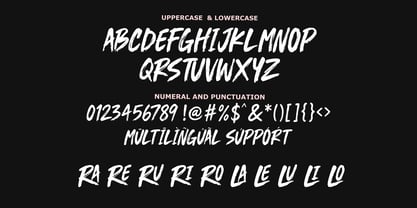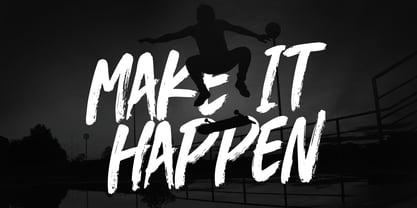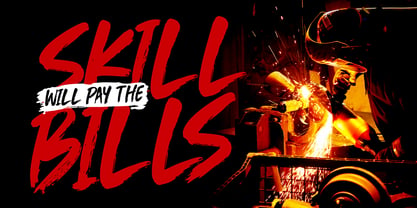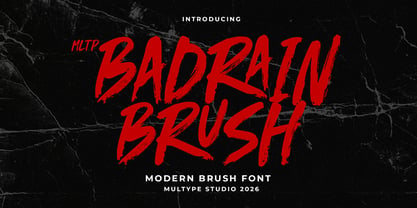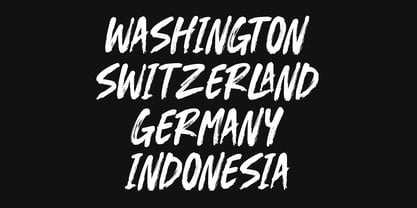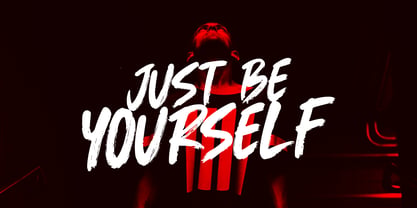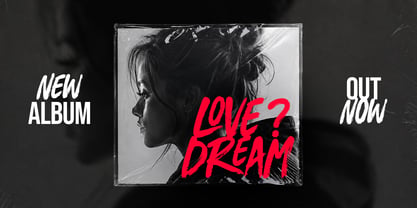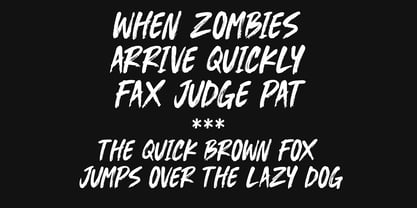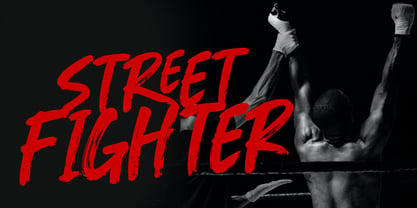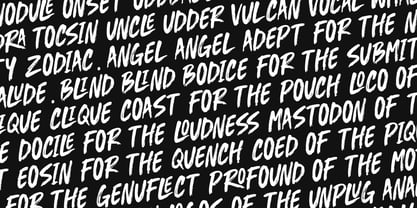
MLTP Badrain Brush
by Multype Studio
The MLTP Badrain Brush Font Family was designed by Mulia Yanto and published by Multype Studio. MLTP Badrain Brush contains 1 styles. More about this family
MLTP Badrain Brush is a bold and expressive brush font designed to bring raw energy, movement, and handcrafted character to your creative projects. With its dynamic brush strokes, rough textured edges, and authentic hand painted appearance, this display typeface is perfect for designs that need a strong visual impact.
From streetwear branding and music artwork to posters, packaging, apparel, logos, social media graphics, and advertising campaigns, MLTP Badrain Brush adds an energetic and rebellious personality to every word.
The font includes all caps letters, numerals, punctuation, and multilingual support, making it a versatile choice for both personal and commercial design projects.
MLTP Badrain Brush works especially well for short, powerful words and headlines where expressive typography needs to become the main visual element.
Designers: Mulia Yanto
Foundry: Multype Studio